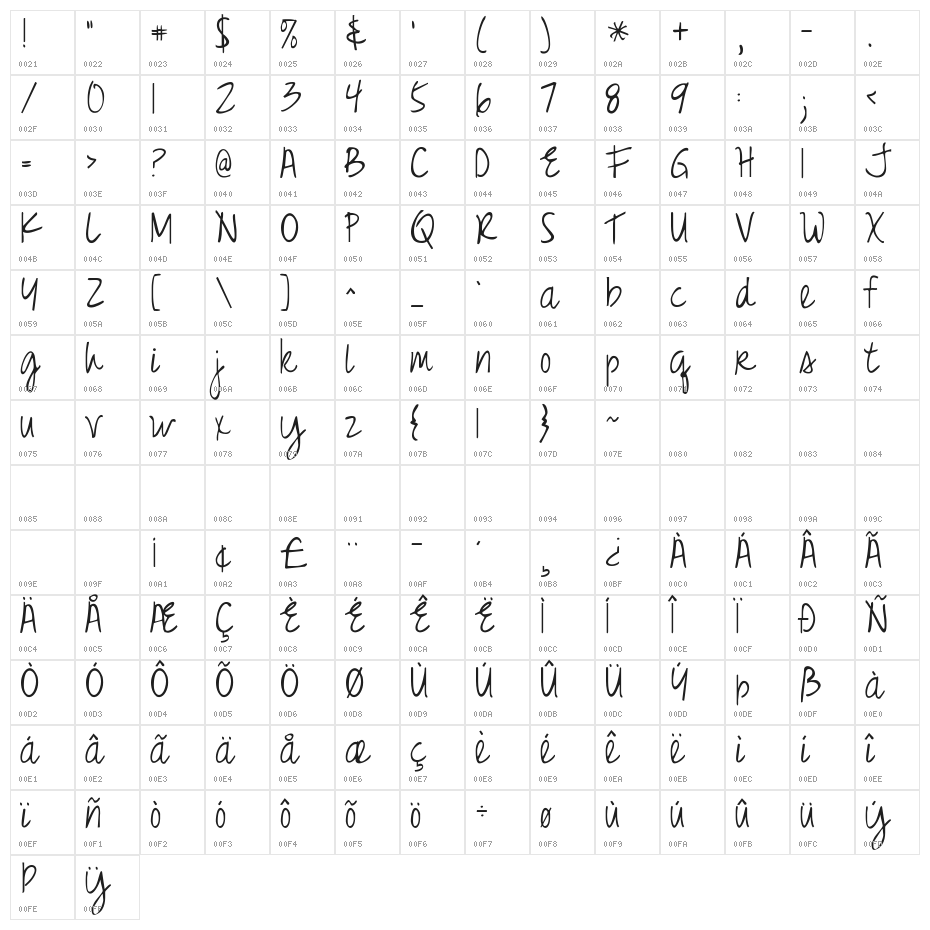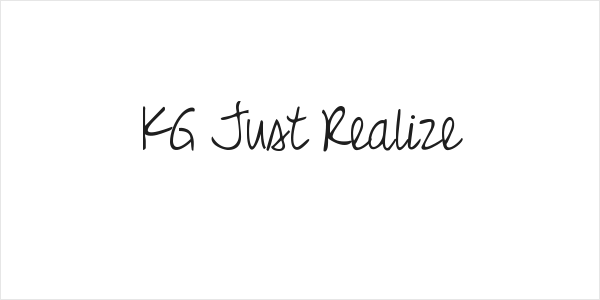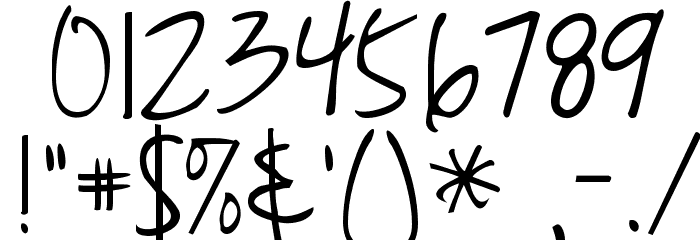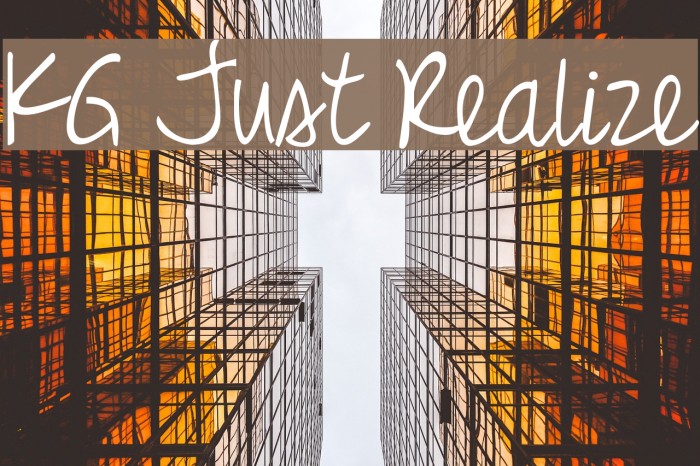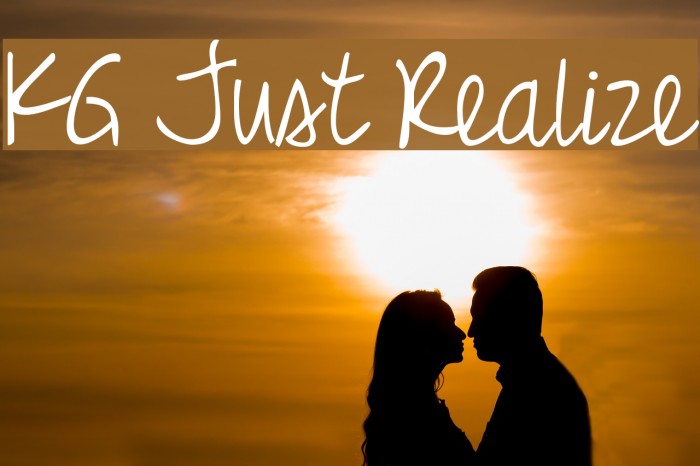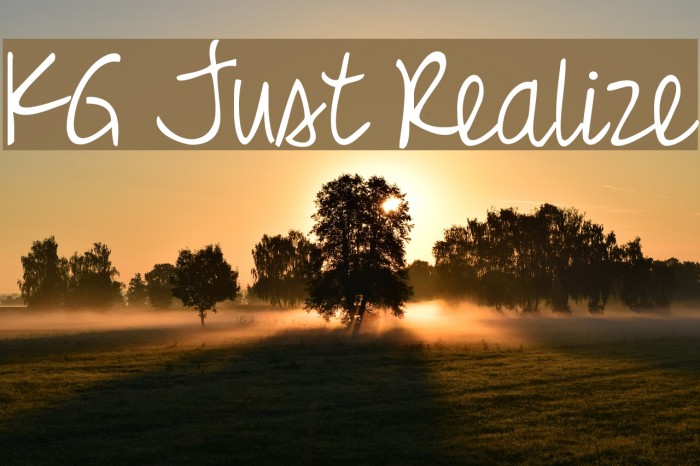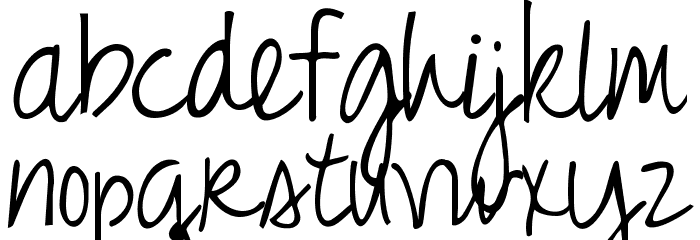
KG Just Realize Font
KG Just Realize Description
This font exudes a casual and playful handwritten style, characterized by its fluid and slightly irregular strokes. The letters are connected in a way that mimics natural handwriting, giving it an authentic and personal touch. The uppercase letters maintain a consistent height, while the lowercase letters vary slightly, adding to the font's charm. The numbers and special characters are crafted with the same playful spirit, ensuring a cohesive look across all elements. This font is perfect for projects that require a personal, informal, and approachable feel.
| Overall Style | Casual, Playful |
| Use Case | Logos, Headlines, Informal Text |
| Proposed Projects | Ideal for greeting cards, personal notes, casual invitations, and creative projects that require a personal touch. |